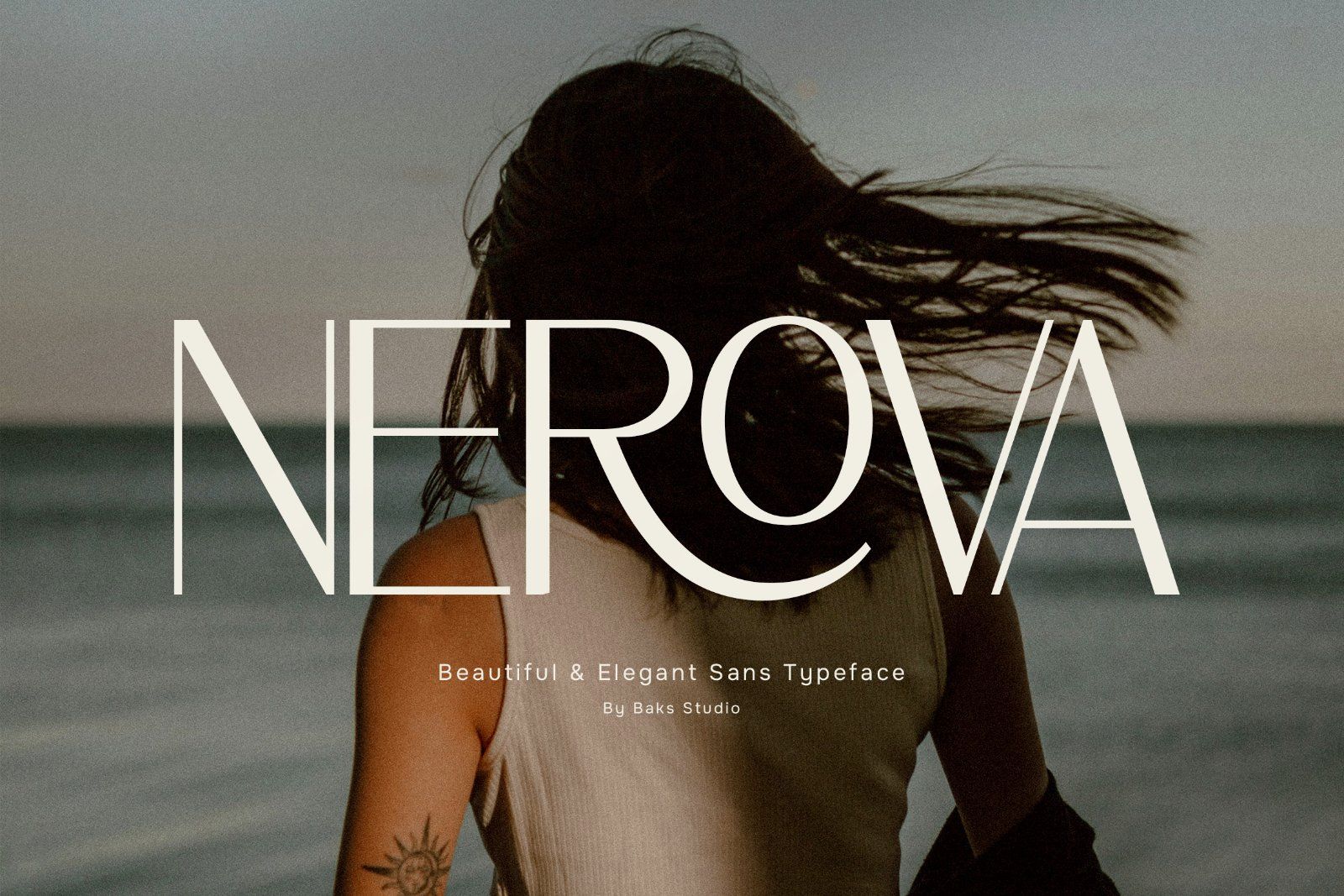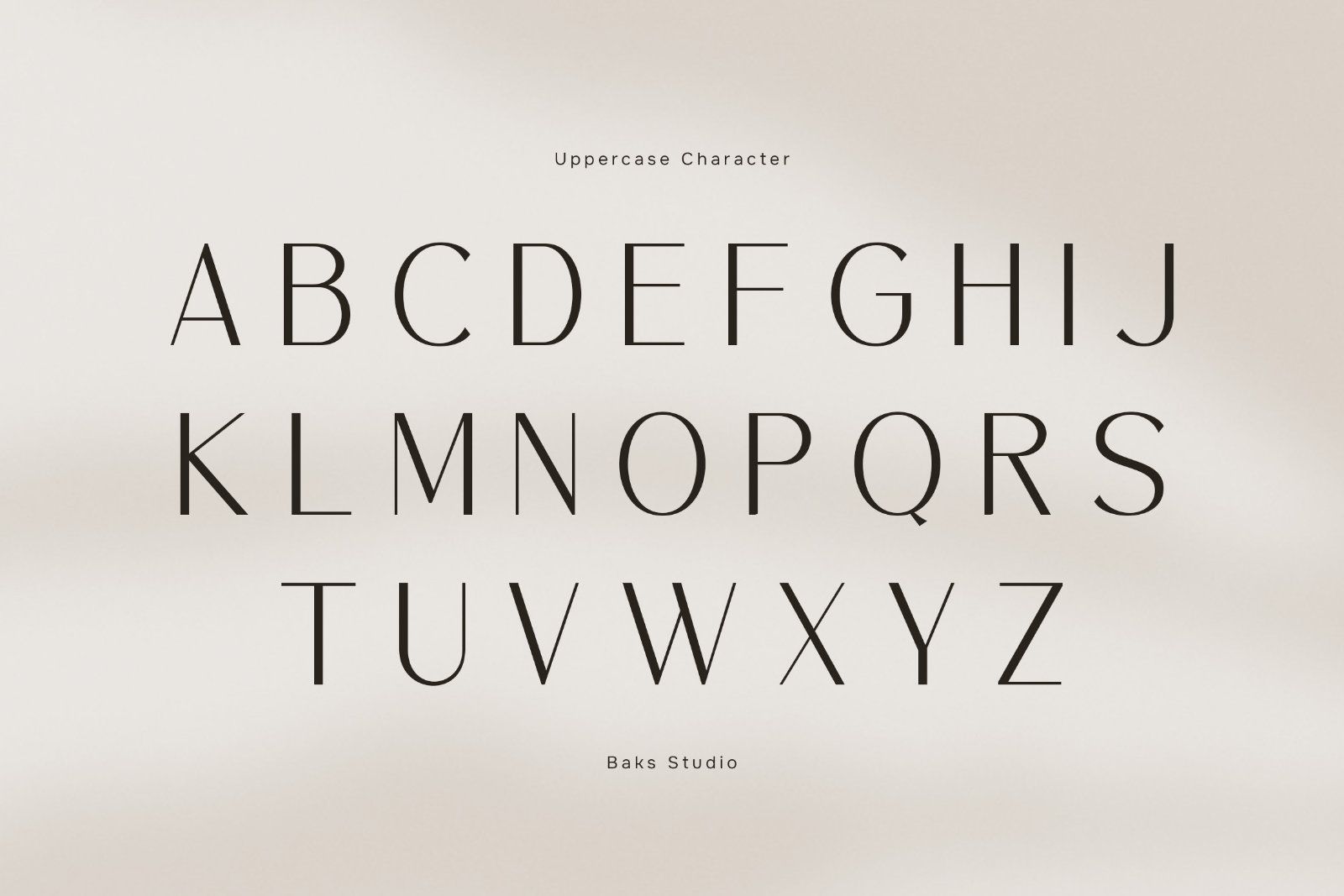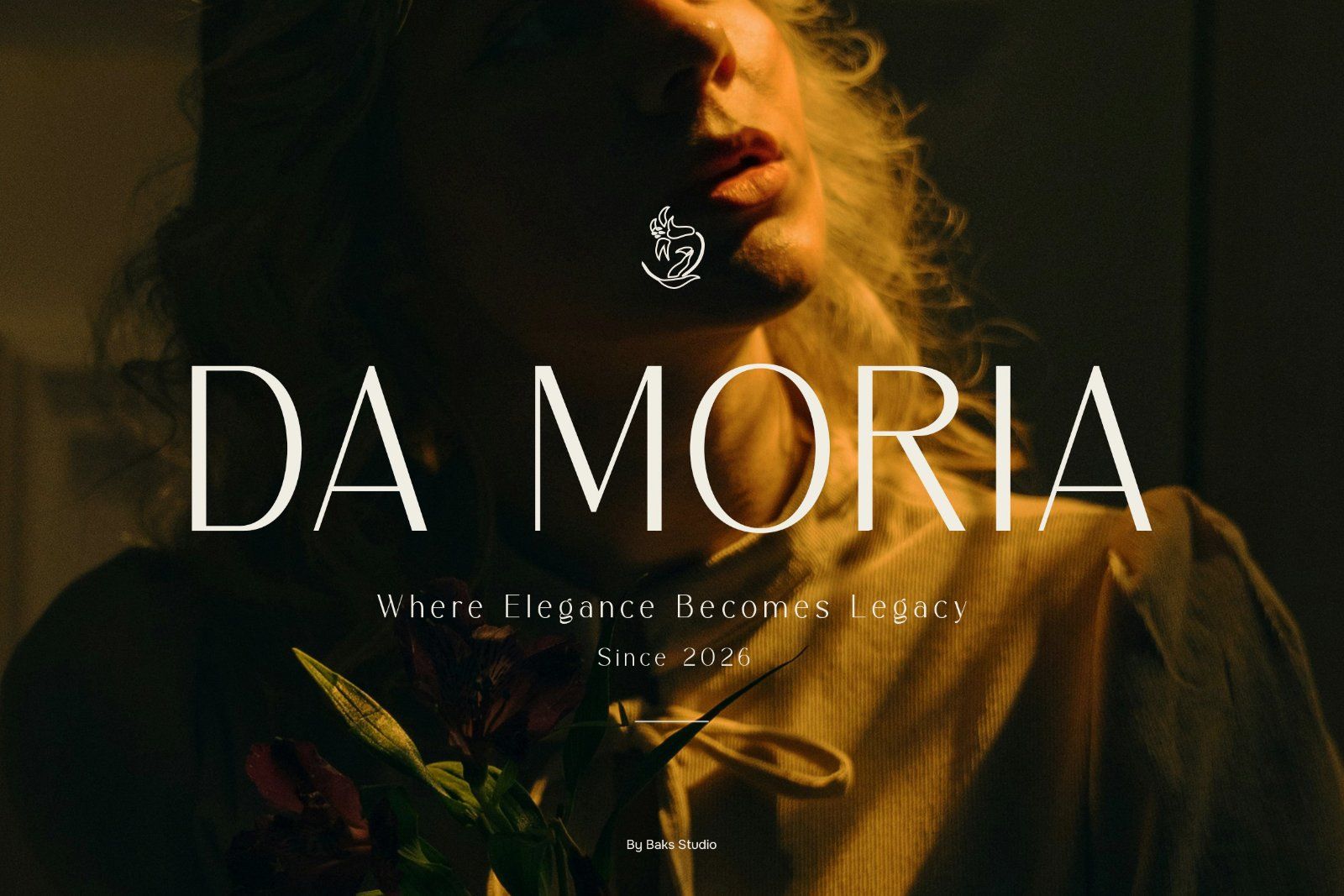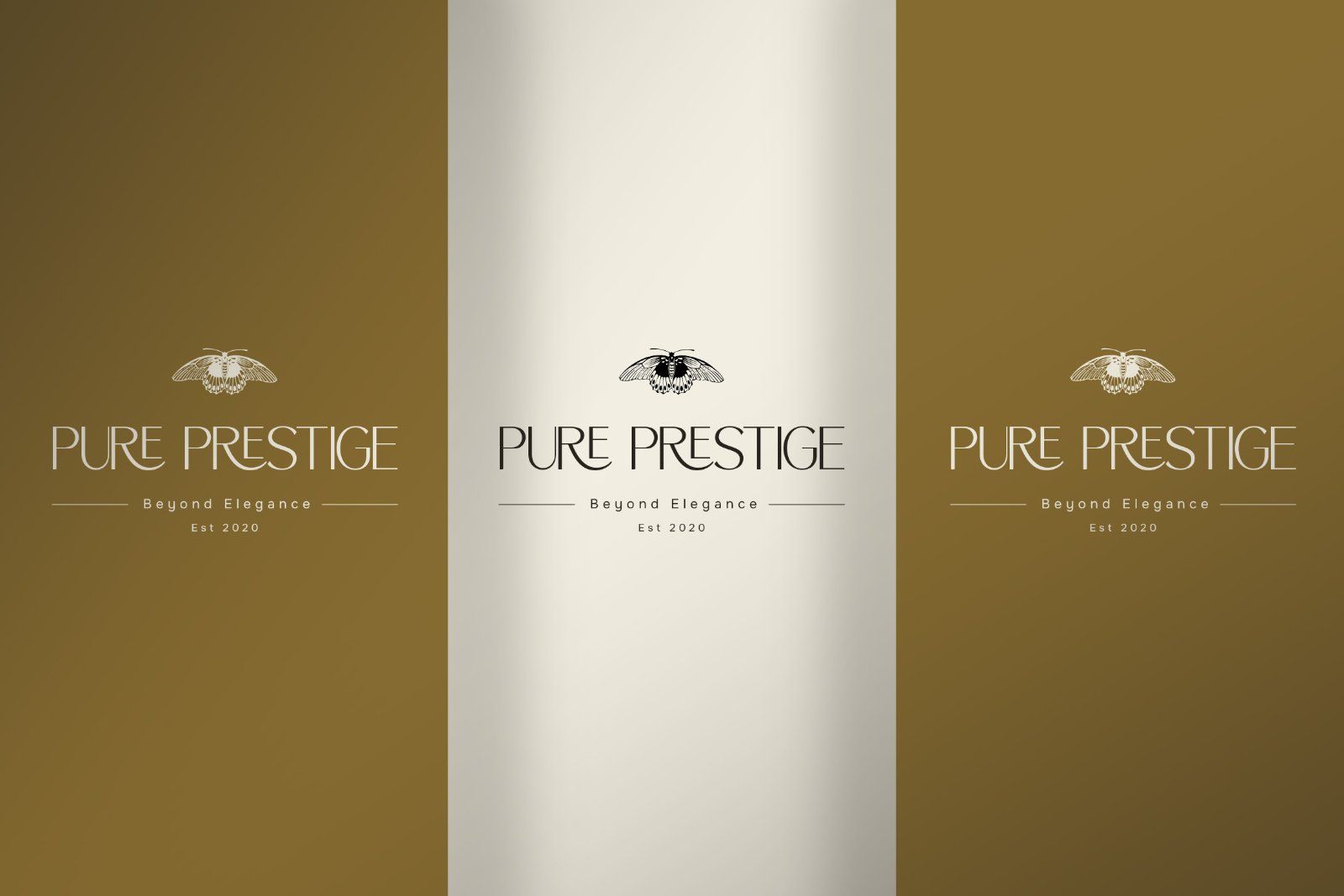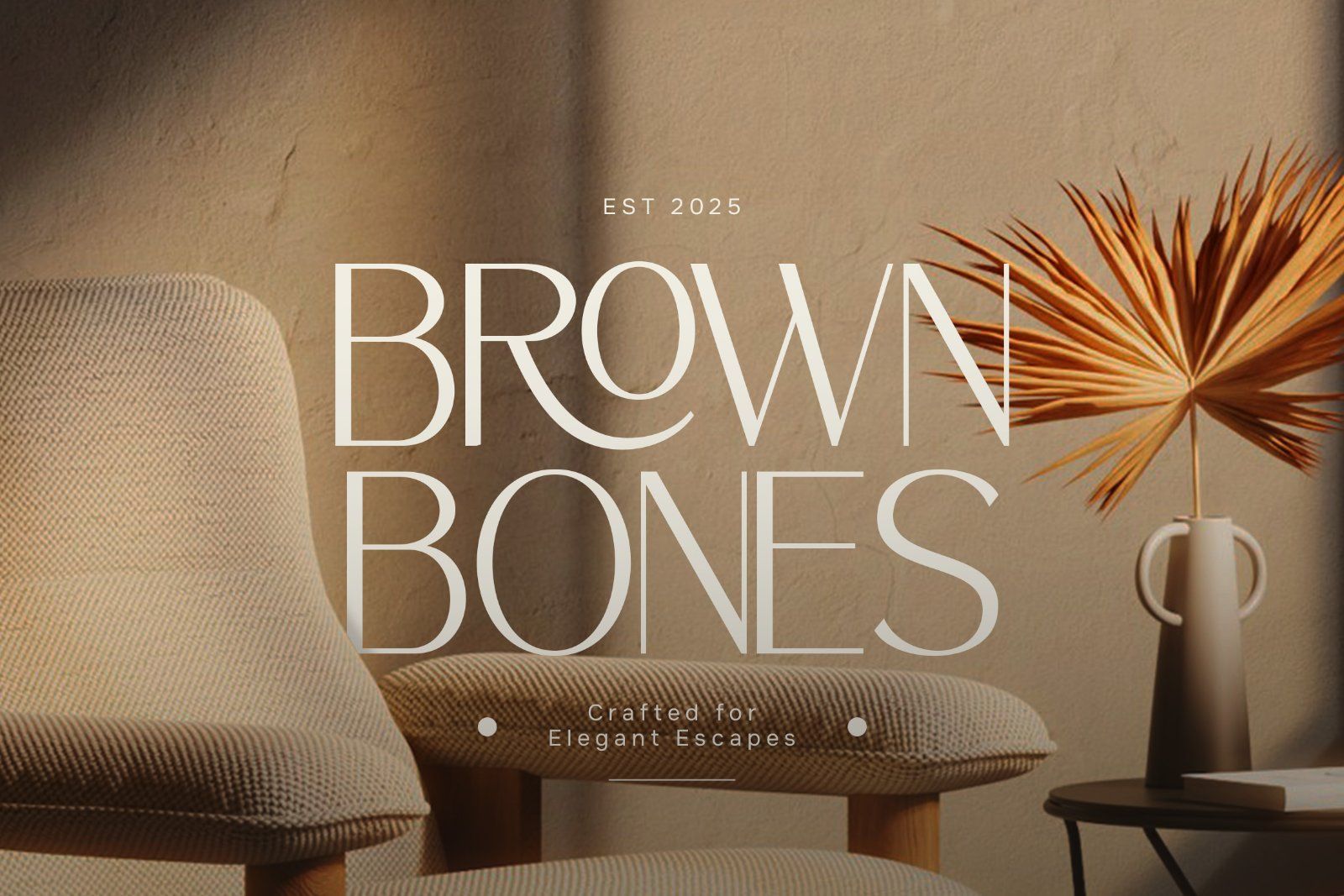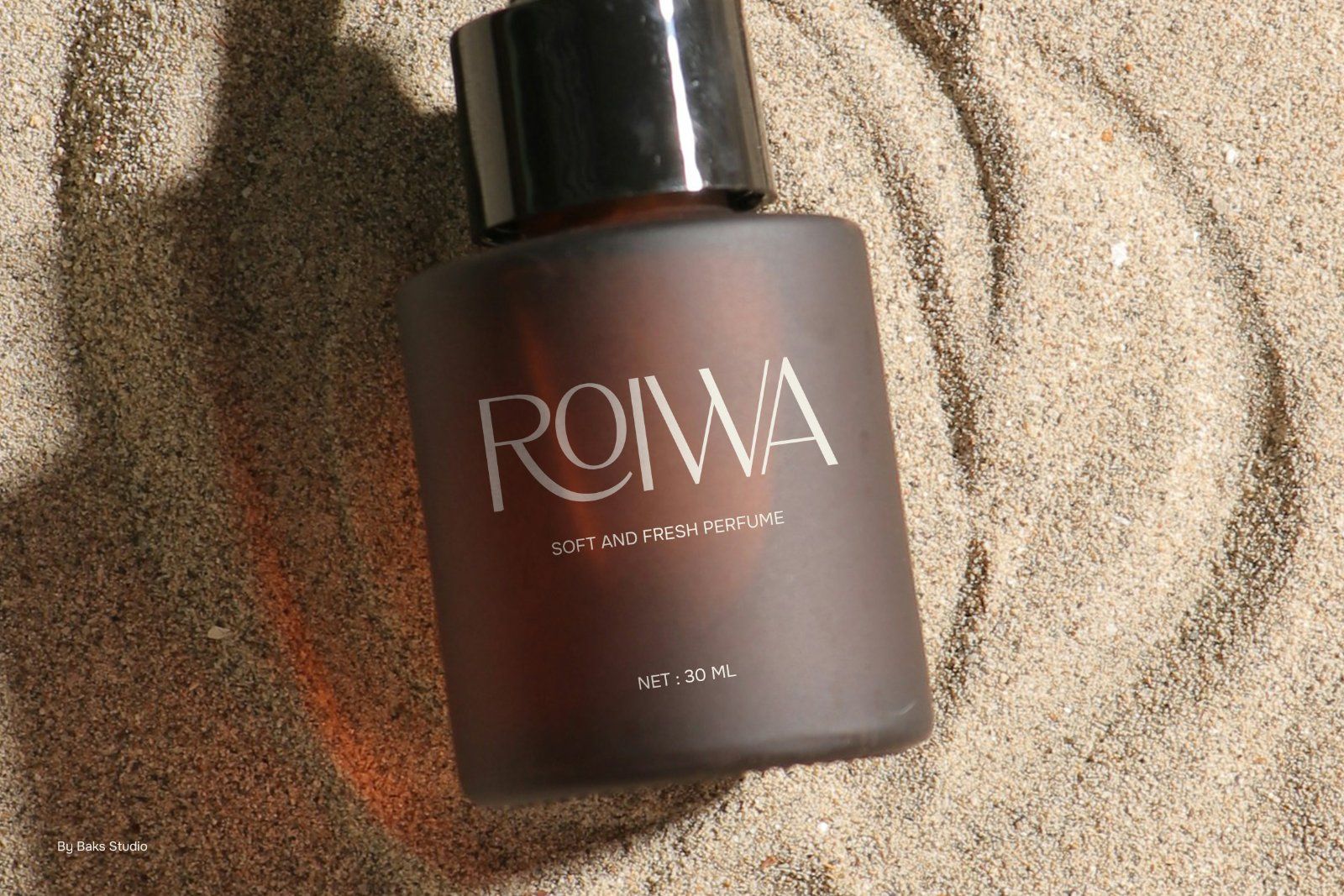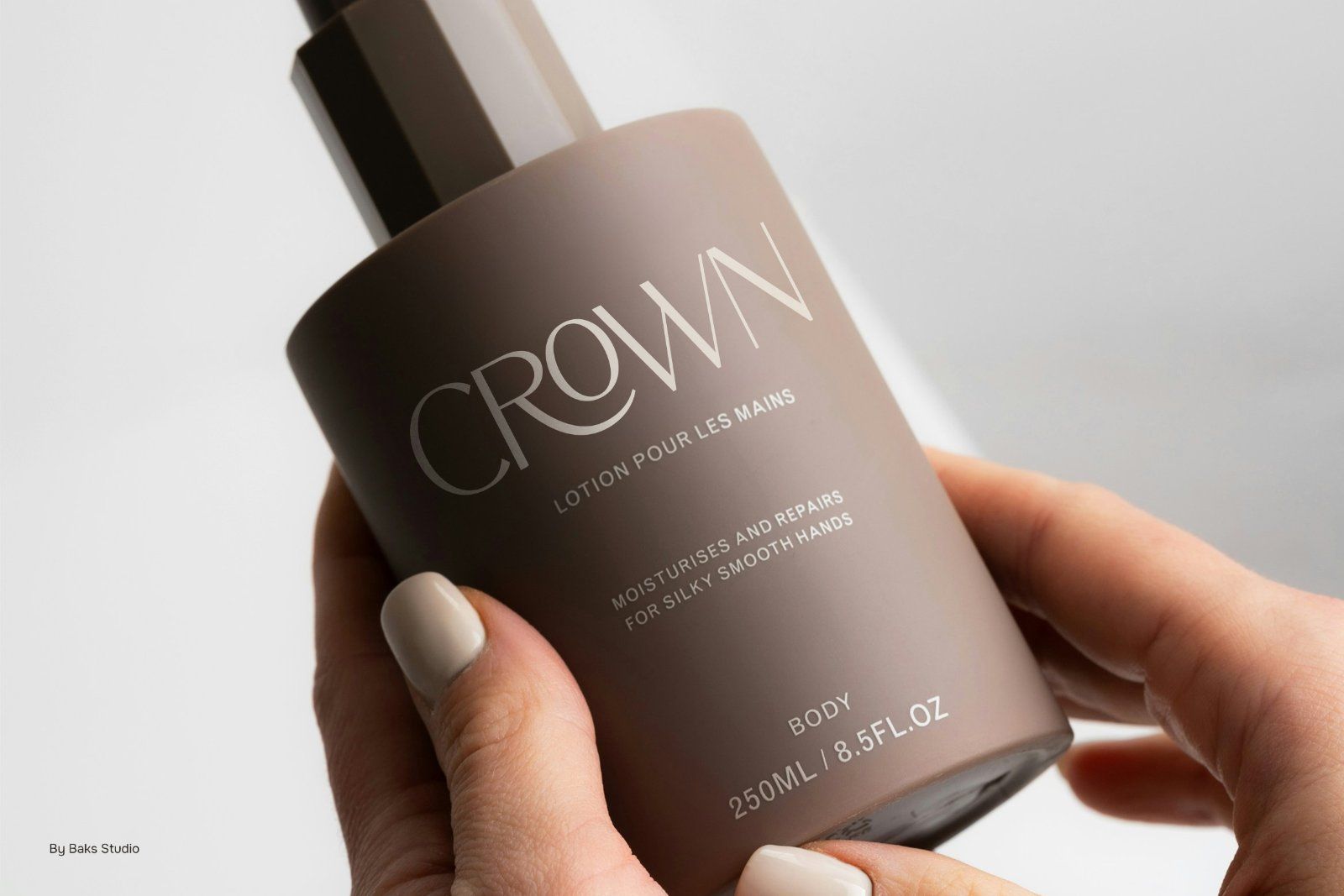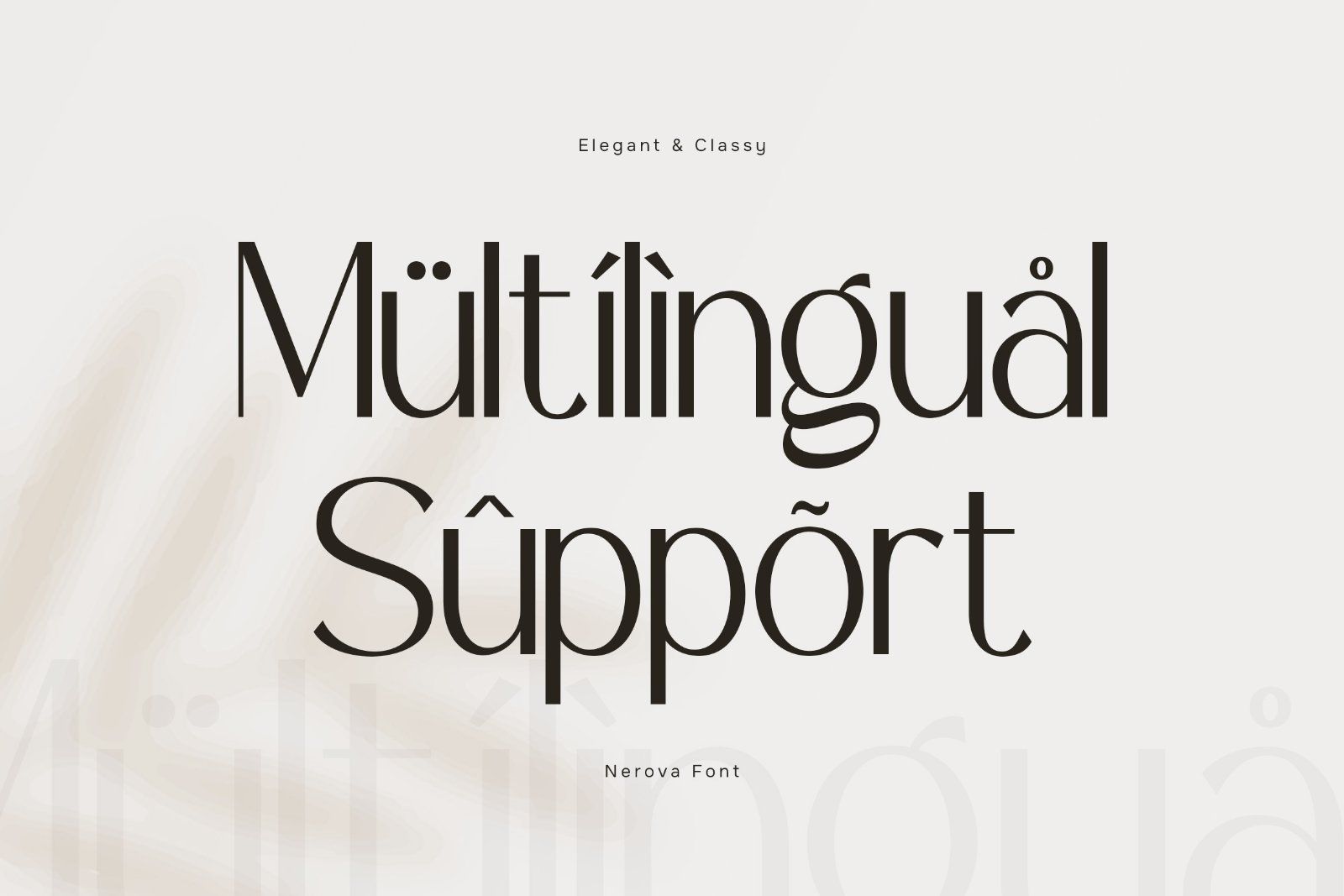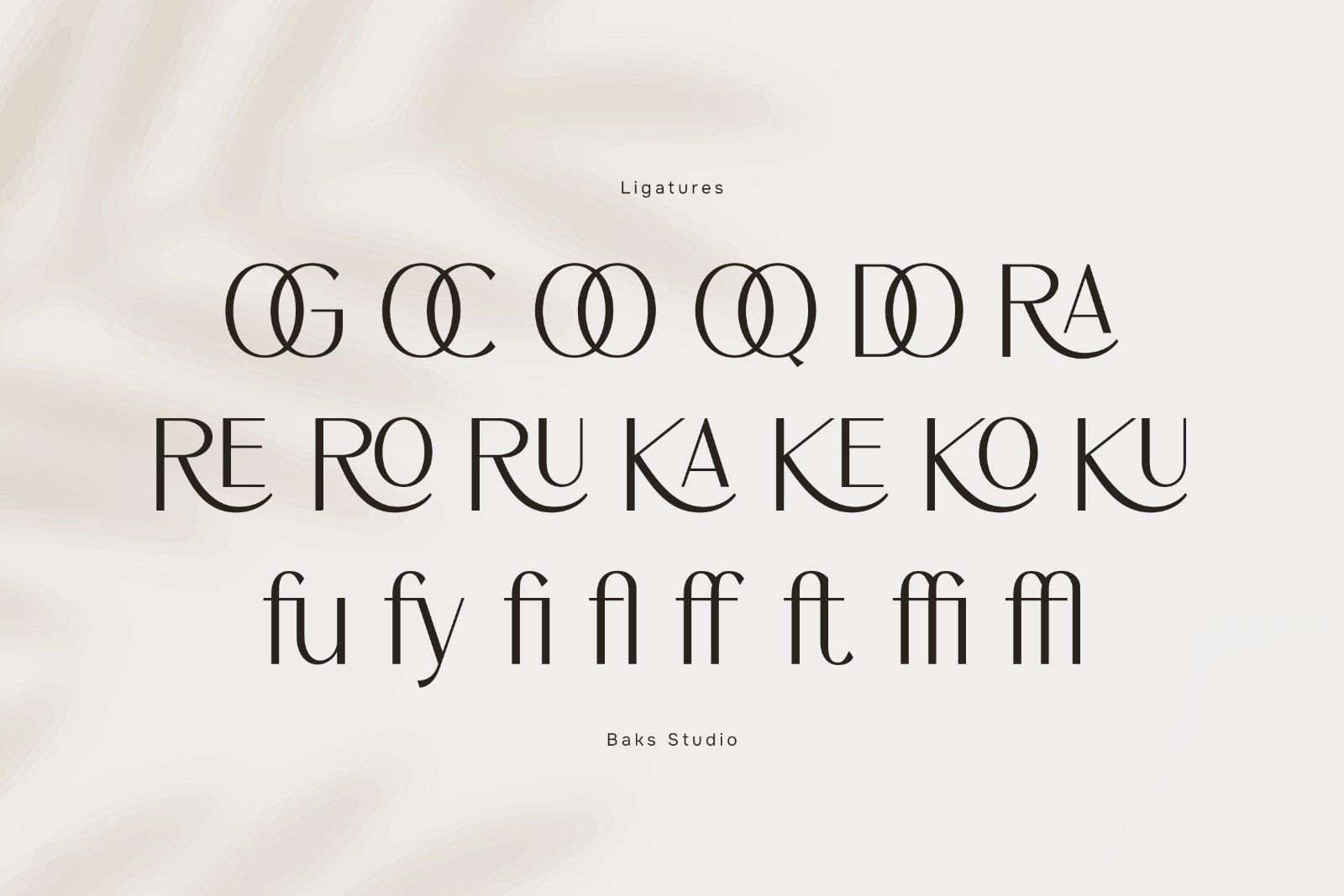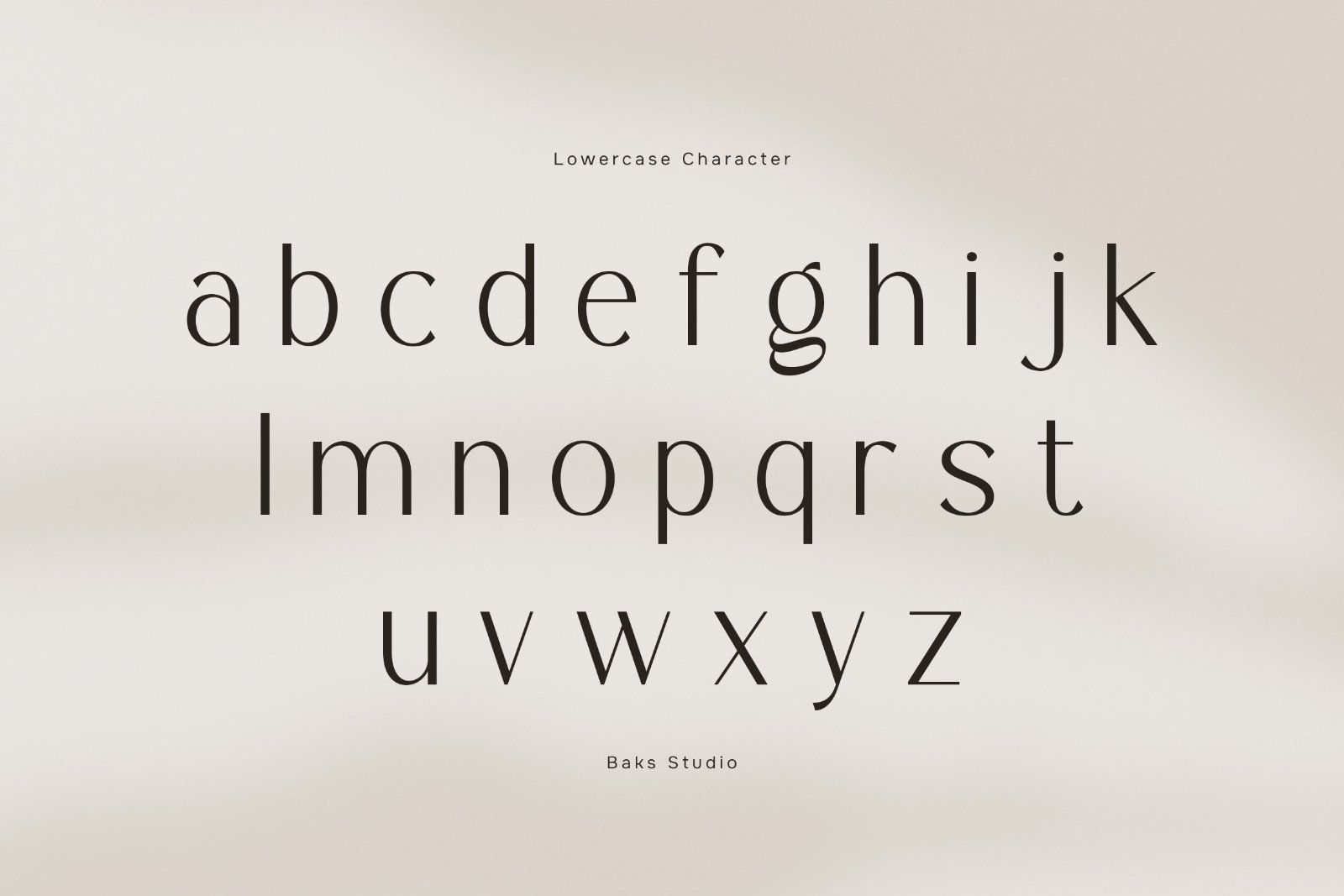
Nerova is a beautifully crafted elegant sans serif typeface that blends modern minimalism with a premium aesthetic. Designed for designers who value sophistication and clarity, Nerova delivers a clean yet distinctive look that instantly elevates any visual project. With its balanced proportions, smooth curves, and refined spacing, Nerova creates a sense of luxury and exclusivity making it perfect for high end branding and professional design work. Every letterform is carefully constructed to maintain readability while expressing a strong visual identity.
Perfect for :
– Logo & Logotype
– Luxury Branding & Identity
– Fashion & Beauty Industry
– Editorial & Magazine Design
– Packaging & Product Design
– Social Media & Marketing Materials
Available with :
• Uppercase
• Lowercase
• Number & Punctuation
• Many Ligatures